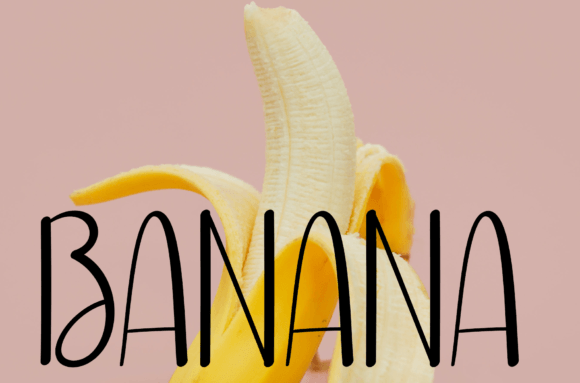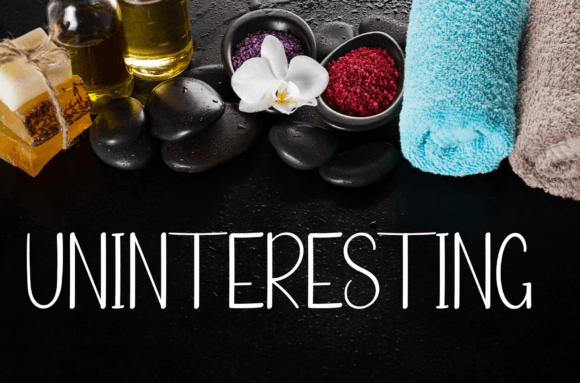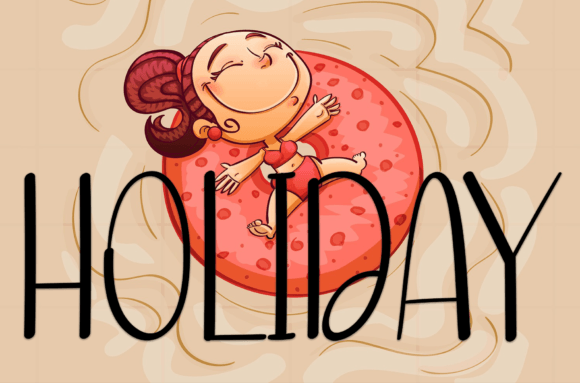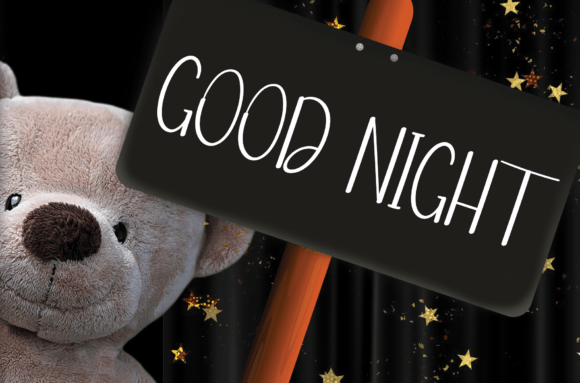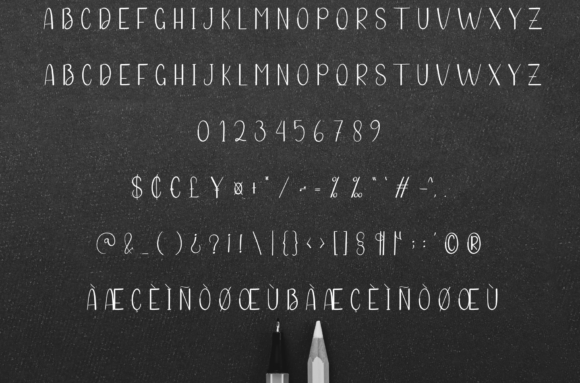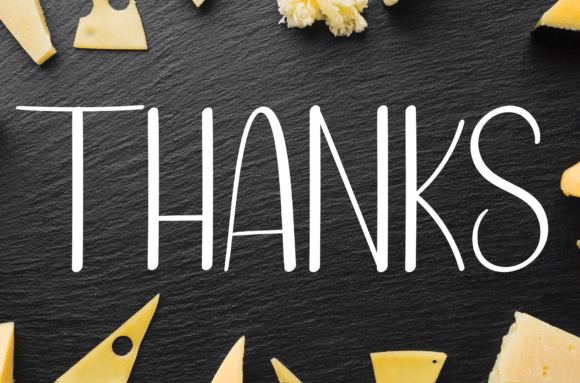
A Personal Review of Evening Twilight Font
Evening Twilight is a sweet and friendly handwritten font that has become a staple in my design toolkit. Here’s what I love about it:
- ✨ Cute and Relaxed: This font exudes a sense of calmness and friendliness, making it perfect for designs that require a personal touch.
- ✅ Versatile: From wedding invitations to greeting cards, Evening Twilight font can be used in various design projects.
- 💕 Emotional Connection: The font’s gentle curves and playful feel help create an emotional connection with your audience.
While Evening Twilight font is amazing, it’s not without its quirks:
- 🤔 Limited Formality: This font might not be the best choice for formal or corporate designs, as it leans more towards a casual and playful feel.
- ⚠️ Glyph Limitations: Some users have reported that the font could benefit from more glyphs and special characters.
How to Use Evening Twilight Font in Your Designs
- Experiment with OpenType features like ligatures and stylistic alternates to add a personal touch to your design.
- Explore the Glyphs panel to access special characters, ligatures, and stylistic alternates.
The Story Behind Evening Twilight Font
Evening Twilight font was created with the intention of capturing the magic of a warm summer evening. The designer aimed to create a font that would evoke feelings of happiness and relaxation. With its gentle curves and playful feel, Evening Twilight font has become a popular choice among designers and crafters.
| What is Evening Twilight font best used for? | Evening Twilight font is ideal for designs that require a personal touch, such as wedding invitations, greeting cards, and other creative projects. |
| Is Evening Twilight font suitable for formal designs? | No, Evening Twilight font is more suited for casual and playful designs. For formal designs, consider using a more refined font. |